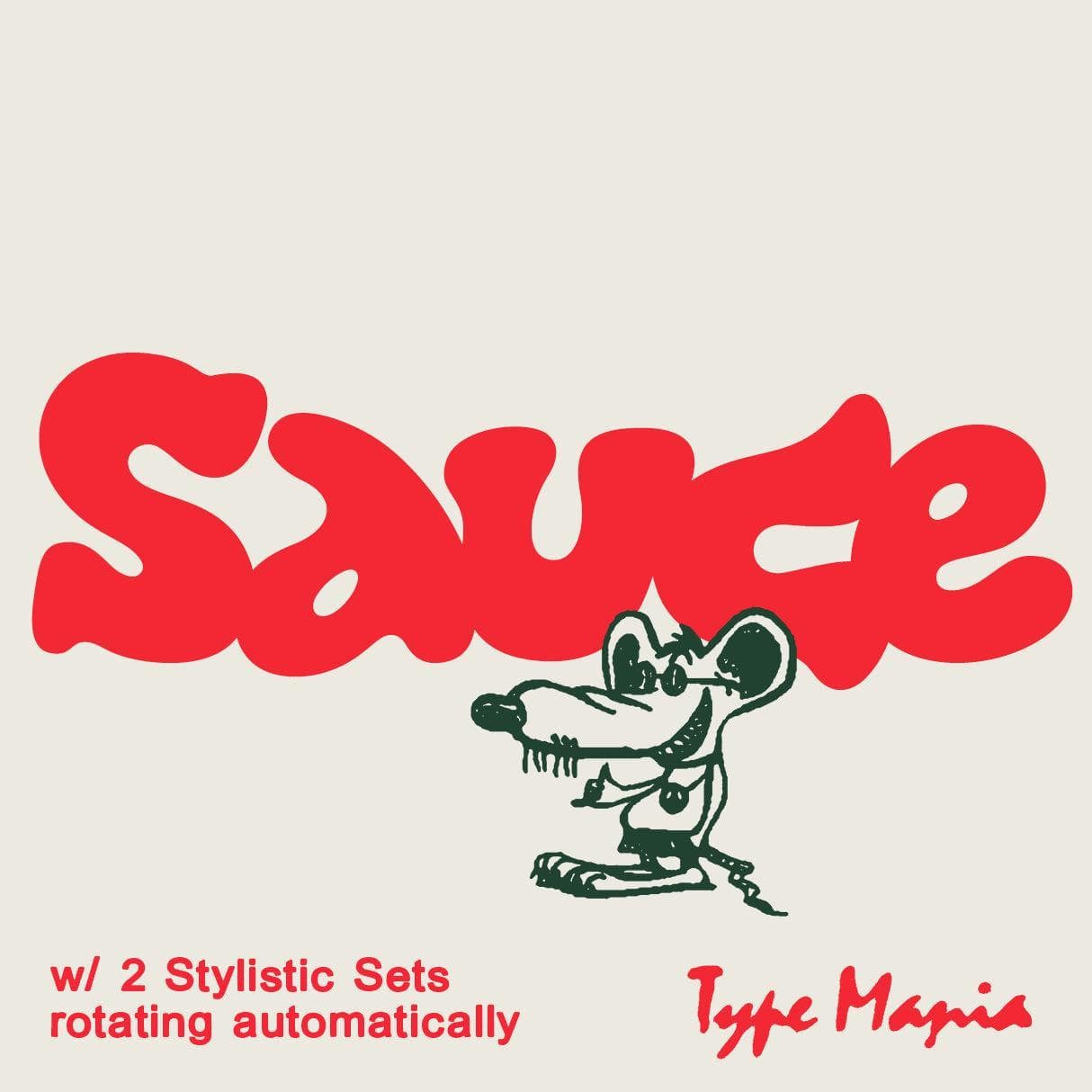
<p>Soft edges, bold presence. <strong>Sauce TM</strong> flows smooth but hits hard, with just a hint of provolone in the mix. Toggle on Contextual Alternates to cycle between two stylistic sets as you type, giving your layout an organic feel damn near automatic.</p> <p><strong>Zip includes</strong></p> <ul> <li>OTF file</li> <li>TTF file</li> <li>WOFF2 file</li> </ul> <p><strong>OpenType features</strong></p> <ul> <li>2 stylistic sets</li> <li>The font is programmed to automatically shift between the stylistic sets</li> </ul> <p><strong>Languages</strong></p> <ul> <li>Basic Latin</li> <li>Western European</li> <li>Euro</li> <li>Central European</li> <li>Pan African Latin</li> </ul> <p><em>Graphic Design is Easy (with Type Mania)®</em></p>